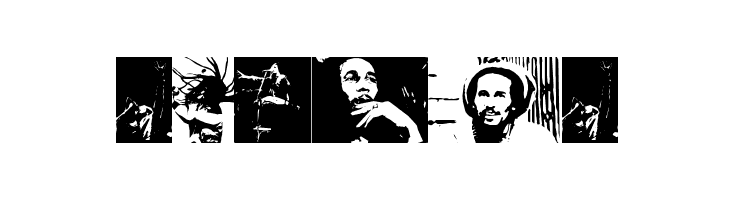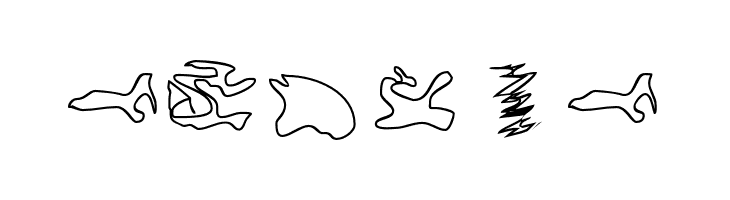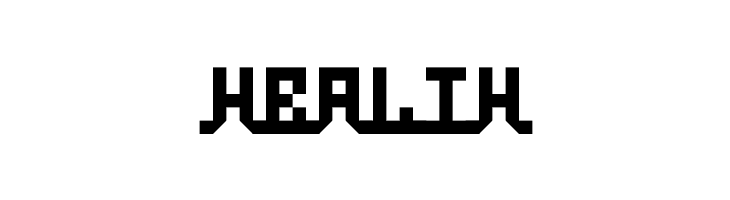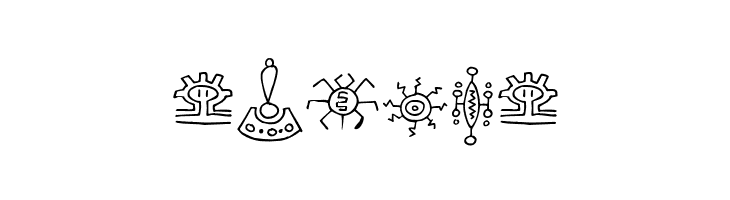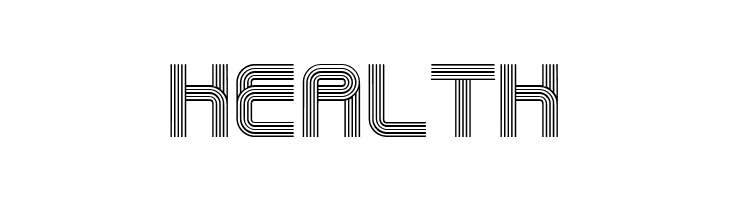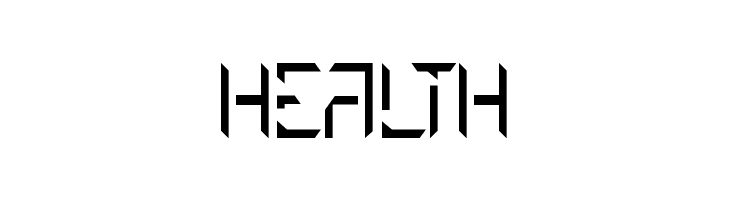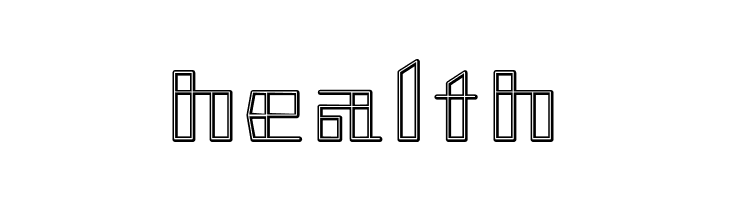
Photo-collage font with each character as a unique image.
An abstract, camouflage-inspired font with fluid, organic outlines.
A dot-matrix styled font with characters enclosed in squares, ideal for digital themes.
A bold, geometric font with a modern, futuristic design.
Abstract, decorative font with intricate, whimsical glyphs.
A tall, narrow, and modern font with elongated vertical lines.
A futuristic, multi-line font with a geometric and symmetrical design.
A geometric, angular font with a futuristic and edgy design.
A geometric, outlined font with a modern, futuristic style.
A futuristic, geometric font with circuit-like accents and rounded corners.